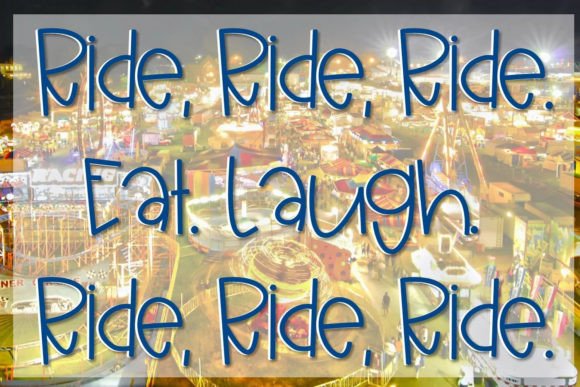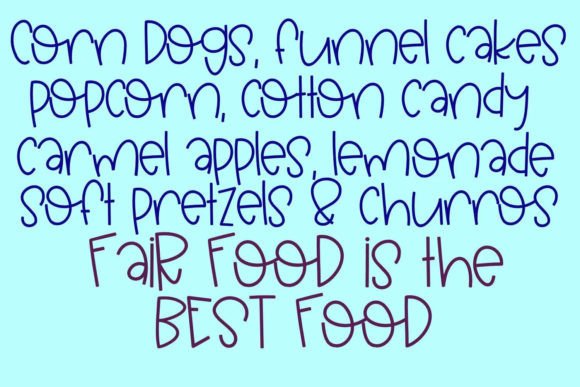
Introduction to Funnel Cakes Font
Have you ever been at a fair or a festival and seen those mouthwatering funnel cakes, only to wish you could bring the whimsy of the handwritten sign to your own creative project? We’ve got the perfect solution for you! The Funnel Cakes Font is here to bring that same carefree, handwritten charm to your designs.
With its transparent background and quirky, handwritten style, the Funnel Cakes Font is the perfect addition to any design project. Whether you’re a seasoned pro or just starting out, this font is sure to bring a touch of personality to your work.
Key Features of Funnel Cakes Font
- High-quality design for creative projects, ideal for food, dessert, and bakery branding
- Funnel Cakes Font is a unique design resource featuring a transparent background for easy customization
- Unique characteristics include hand-drawn elements, playful typography, and a whimsical feel
- Perfect for use in digital and print designs, including social media graphics, flyers, and menus
I recently came across the Funnel Cakes Font, a free download that’s been making waves in the design community. As a designer, I was excited to put it to the test in one of my current creative projects.
- ✨ The Funnel Cakes Font has a high-quality design that’s perfect for adding a playful touch to your projects.
- ✨ The font’s transparent background makes it easy to use in a variety of design settings.
- ⚠️ The font’s character set is limited, which may not be ideal for longer blocks of text.
- ⚠️ Some of the characters may not render properly in certain font sizes.
Overall, I’d say the Funnel Cakes Font is a great addition to any design resource collection. While it may not be suitable for all projects, it’s perfect for adding a whimsical touch to your creative work.
I’d definitely recommend giving it a try, especially if you’re working on a project that requires a high-quality, playful font.
The Funnel Cakes Font is a high-quality design resource perfect for any creative project. With a transparent background, this font is versatile and easy to use in various applications.
To get the most out of the Funnel Cakes Font, experiment with different font sizes, colors, and styles. You can also combine the font with other design elements to create a unique look.
The Funnel Cakes Font is perfect for a variety of projects, including:
- Birthday invitations
- Wedding graphics
- Food blog headers
- Travel brochures